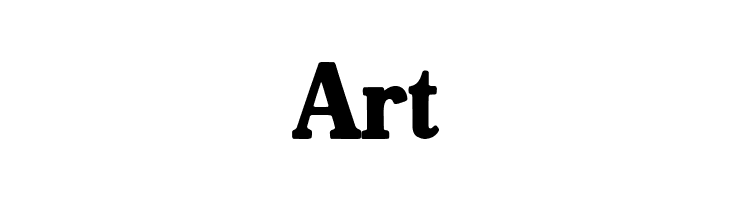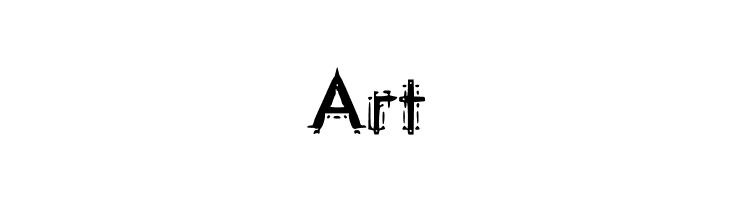
An ornate and dramatic font with sharp serifs and intricate detailing.
A bold, ancient-inspired font with sharp, angular characters.
A bold, Gothic-style font with sharp, angular lines and intricate detailing.
A whimsical, continuous-line font with intricate loops and curls.
A functional MICR font for machine-readable financial data encoding.
A bold, distressed font with a cracked, rugged texture.
A bold, classic serif font with strong, pronounced strokes.